Choosing the right typeface
Typeface selection is an art and a science because it involves creativity and problem solving. Veronika Burian and José Scaglione offer ten tips on selecting typefaces.
To a great extent, graphic design involves written language, regardless of the designer’s field of specialization or personal abilities. You may have heard the saying, “95% of the Web is text.” The designer’s task is to transform information into effective pieces of communication. In most cases, writing is used as one of the main means to transport information to the reader’s mind, and in contemporary design this is mostly done with typography.
This article will simplify the complicated task of selecting fonts, help you stretch beyond your typographic comfort zone, and abandon recipes that tend to create repetitive, inefficient, and boring work.
1. Nine points small or nine feet tall?
The first point to be considered is the relationship between the structure of letters and content. Is it a long article printed at 9 points, or is it a very short title printed at 96 points?
As a rule of thumb, fonts with large counters, open terminals, and distinctive shapes tend to perform better in body copy sizes since they increase legibility. A font with oldstyle figures and with capitals that are slightly shorter than ascenders is more conducive to achieving an even texture in a block of text. Bits and pieces should not visually jump off the page and disturb the flow of reading.
On the other hand, headlines require compressed shapes to allow many characters onto a single line. Very short ascenders and descenders are needed to avoid a flag-like appearance in multi-line titles. Consider fully the needs of the typeface — where and how it will be used — because those answers will dictate what forms the characters must have.
In the headings above, Protipo Compact and Abril Titling Condensed are two examples of type families with short descenders and condensed forms to give headlines a solid look (more or less). But Athelas and Noort are designed for reading long paragraphs: open counters, low contrast, strong terminals, etc. Even though both are designed specifically for a similar context, they offer a very different outcome: different texture, different gray value, different use of space.
2. How many fonts?
Designers should also consider the number of fonts necessary to follow the logic behind the desired layout. Having just a few typefaces is always better than using too many.
A single typeface with italics and small caps will suffice for plenty of projects. However, as the design piece grows in size and complexity, an appropriate typographic response is indispensable.
Magazines and newspapers require a wide range of fonts (and even entirely different font families) in order to correctly present various sections, technical information, pull-quotes, navigation elements, footnotes, and much more.
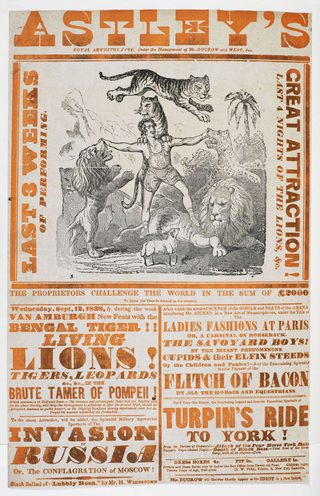
Unless you are setting a revival of a 19th century poster like the one above, using few typefaces is generally preferred. Image: courtesy of British Library, Public domain, poster of Astley’s Amphiteather, 1838.
3. For reading or for researching?
Another important factor is the way readers relate to the application. In the case of a novel, the reader starts on page one and reads steadily toward the end of the book. In a reference book such as a dictionary, the reader navigates the book swiftly, skipping unnecessary data until they find the one very short entry they were looking for. It should be no surprise that each scenario calls for a very different typographic choice.
In the first case, the user interacts with the text for an extended period of time, making reader’s fatigue the main problem. A serif typeface that has enough air overall (i.e., white space), has good typographic colour, and preferably low contrast would be appropriate here.
In reference books, however, reader’s fatigue is not a concern because the user is not exposed to the text for a prolonged period of time. Reference books instead usually require special characters (such as the International Phonetic Alphabet), a large amount of styles as an aid to navigation and structural guides, and compressed shapes to save printing space.
Typographic dissection of a dictionary entry to show the complexity of this kind of publication, usually requiring the use of multiple variants (italics, bold, small caps, ornaments), each of them adding a new layer of knowledge and content.
The microstructure in a book determines the navigation for the reader and it has to be very clear. If the distinction between headlines and subheadings is not clear enough, the reader may lose their way through the text.
4. Can it set Molière, façade, Beyoncé, and Čapek correctly?
Selecting a font family with correctly designed diacritic marks is the most neglected issue — and probably the most important — when selecting fonts. In other words, does the font contain all the required glyphs to produce the work?
It is alarmingly common that designers find out they are missing a few accents, fractions, or small caps only after convincing their client that this is “the right font for the job”. Nowadays most people don’t think beyond what’s included on their computer. But even when the text is in English, there may be references to foreign names, places, or simply the need for specific characters because of how words have been adopted into languages from which they did not originate.
Therefore, it is highly recommended to familiarize oneself with the text and gain information about the selected typeface as much as possible beforehand. Designers can also ask the type foundry to confirm certain glyphs are included in the font file and for a special testing licence.
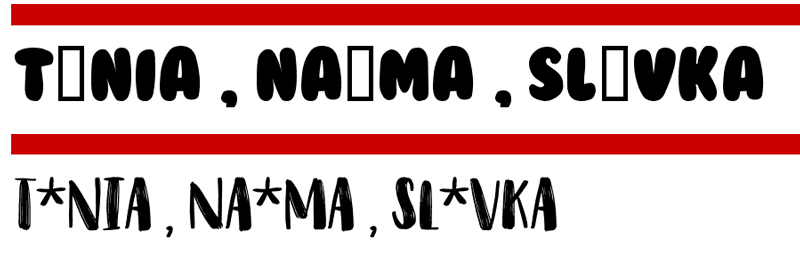
In the image above, this is what happens when typing names of three well known type designers: Tânia, Naïma, and Slávka, in a popular free fonts website.
When choosing a typeface, it is essential to make sure it will cover all the linguistic needs. You may not need certain characters from day one, but finding out that there is one or several characters missing when everything is ready to be published, or even worse, once it has already been printed, can be frustrating.
5. Book, newspaper, or screen?
To the trained eye, the construction details of lettershapes will say a lot about when and at what size a typeface may be used. The fine details of a book type family like Maiola or Sabon hint at the need for high-resolution printing and rather generous reproduction size so as not to destroy their delicate shapes.
On the other hand, typefaces engineered for newspapers or screens are more robust and seem to lack that refined personality at first glance. Typefaces like Georgia or Abril Text, while not looking as fragile to the eye, will perform much better in low-resolution rendering or when printed in small sizes.
Many of these problems can be foreseen by exercising a certain level of common sense: How will very thin Bodoni-like serifs react to the use of very rough paper? (Usually not well.) What will happen with that lovely extrablack font weight if printed at 8 point size? (It will usually become globby and unreadable.) If in doubt, print and compare.
The fine details of Maiola and Sabon will perform better in fine printing, while Abril and Georgia, with their robust terminals and lower contrast, can handle low resolution situations much better.
6. Devil in the details: Have you heard of hinting and kerning?
Some fonts are specially created for proper screen rendering or Web publishing. They have been “hinted”, a post-production process which provides a significant qualitative difference when selecting fonts for websites or software embedding. The hints help to keep the typeface from being down-sampled incorrectly or too much, and ensure that parts, such as stems, will have a consistent width even within coarse pixel grids.
Kerning is part of the initial design and production process that makes letter pairs distinguishable. All type designers should complete this process, and all professional level foundries do, but smaller foundries may not have the know-how.
Because of some lettershapes and how they combine in various languages and with diacritics, some combinations cannot grant nice and even spacing. These are identified and tweaked manually. This process allows letters such as “T–a” to be moved closer together, but not as much as “T–ä”. As you can imagine, the more characters and languages a font supports, the more purposeful and exhaustive kerning should be. Foundries should state which languages they support with their fonts and the desginer should always be alert for possible problems.
Portada, a typeface designed and engineered for screen, photographed on a 27-inch (3840 x 2160) screen, using an SLR camera with a 55 mm lens, and digitally augmented 600%. The position of each pixel influences how typefaces are perceived on screen.
7. And how about OpenType?
Designers should also consider problems related to system compatibility. Fonts are bits of software so they may not work in certain operating systems or network environments.
The OpenType format provides type designers with endless typographic possibilities and better language support. Today, small caps can be part of the same font file as the lowercase letters, and there are many different typographic niceties accessible in some fonts (discretionary ligatures, swash characters, contextual alternates, and much more). Similarly, OpenType now supports the variable design format which, when available, can pack multiple styles in a single, unbelievably small font file.
The availability of these features is dependent on the support provided by the DTP application, the operating system, or the browser. So designers must carefully check the most technical aspects of selecting fonts.
In many Mac applications, the Typography panel is hidden under the Fonts submenu, or shown with the keystroke Command-T. If one manages to find it, most of the OpenType features can be controlled. Temeraire’s typographic features are shown above in Apple’s Pages application (version 8.2).
OpenType Layout features are advanced typographic capabilities built into fonts that allow for automatic glyph substitution (alternates, ligatures) and positioning (kerning, mark placement). These features, supporting complex scripts like Arabic, improve text design, readability, and efficiency in desktop publishing software. Read more about OpenType layout features from Microsoft and Adobe.
8. Trendy, beautiful, emotional?
Once morphology, functionality, and technical restrictions pare down the universe of typefaces to choose from, aesthetic aspects can be discussed. While judging the aesthetic value of shapes is highly subjective and personal taste always takes the front seat, there are still a few general recommendations to consider when choosing a typeface for your project:
– Be careful, even hesitant, about following trends. Designers can use fashionable type or composition styles to generate an immediate effect, particularly in pieces with a short life span. Trends change rapidly though, and the design can quickly look outdated when they do. Therefore, take special care when developing designs with a more permanent goal.
– Think about how the texture of text blocks and formal qualities of the lettershapes relate to the content. Letters carry different emotional properties and create a general atmosphere. It is important that this impression feels in harmony with the message that is being conveyed. Information design and news design require fonts that do not add any emotional sway, while a wedding invitation or poetry book needs just the opposite.
– Typefaces not only establish a relationship with the content but also with the reader. It is worth considering how prominent the project’s typefaces are and with what volume and tone they communicate to the reader. Titling types are by definition louder — they need to grab attention. The designer can get away with display fonts that are more personal or include certain particularities in their shapes that make them unique, even in the most demanding environments, like daily newspapers. Text fonts require a more subtle approach to balance very complex issues, such as character repetition rate, character recognition, and readability.
The book typographer has the job of erecting a window between the reader inside the room and that landscape which is the author's words. He may put up a stained-glass window of marvellous beauty, but a failure as a window; that is, he may use some rich, superb type like text gothic that is something to be looked at, not through. Or he may work in what I call transparent or invisible typography.
9. How can typefaces be combined?
If typefaces create a relationship between content and reader, they definitely establish a relationship with the other fonts used. Sometimes several font styles need to work together in the same block of text, for example a dictionary or table. Trying to match the x-height and carefully choosing the different levels of visual stress in the text are one key to success here. The so-called font super families are generally well prepared for combining fonts in the same block of text, because their overall proportions and weight already match each other.
Type families are easier to combine when they fulfill separate tasks on the page and when set at different sizes for clear hierarchy. While it is true that almost any font combination is possible if using contrasting sizes, it is advisable to choose typefaces that share a design intention (such as the level of formality or how modern or vintage fonts look like). This is another way to stress design consistency and create some sense of familiarity for the reader.
One possibility for complex settings, like newspapers, reports, and magazines, is combining two families that have been specifically designed to be compatible. It’s a bonus if they include different levels of condensation, optical sizes, pictograms, and the like. The image above combines the display versions of Protipo and Portada, two families meant to work together in complex enviroments: infographics, newspapers, reports
10. What is the budget?
This is the most straightforward factor — easy to figure out. And in some cases it may also be the most limiting. Budget may force designers to work with open source fonts or to work with fonts that are included in certain software packages, such as system fonts. It may also mean that some fonts are a fixed choice, i.e., the client already owns a license for them. Designers are sometimes asked to only look for other typefaces that will get along with the fonts already in use. It is highly advisable to learn about any budget constraints before going on a wild goose chase. (Or is it a wild font chase?)
We also recommend taking the time to look into some limitations that font licenses may or may not have. For example, deployment as webfonts, embedding in software applications, use in mainstream broadcasting, storage and use from a central server, and some commercial applications may require additional and sometimes much more expensive licensing. If in doubt about the particulars of license requirements, the designer may always contact the type foundry and request additional advice and guidance.
For more information about budgeting and font licencing you can read our licencing article.
This brief overview of the matters related to choosing fonts is just the tip of the iceberg. We invite readers to think about the concepts we mentioned and come up with new ones. Whatever the procedure and conceptual framework is, it is important to understand that type selection should be an informed task. It is a process that does not leave much room for already-made recipes or capricious tastes.
Beware of blindly using any of the many font lists out there. Some are better than others, but even the ones that are correctly compiled may not be a good match for a particular design problem since all design problems are unique.
A font selection process that is fully aware of the complexities that go beyond decorative issues can only help to achieve better design, and it will hopefully guide graphic designers through a journey of type discovery. Selecting the right typefaces does make a difference — it sets the tone for everything to come.